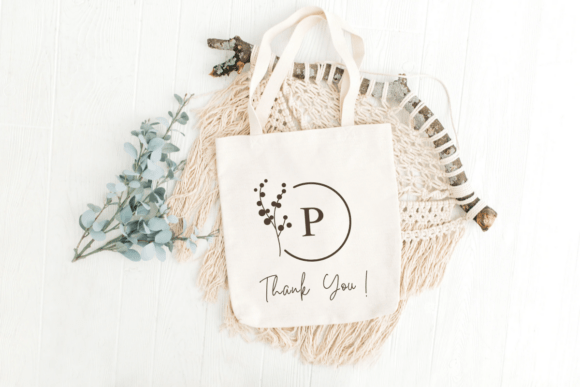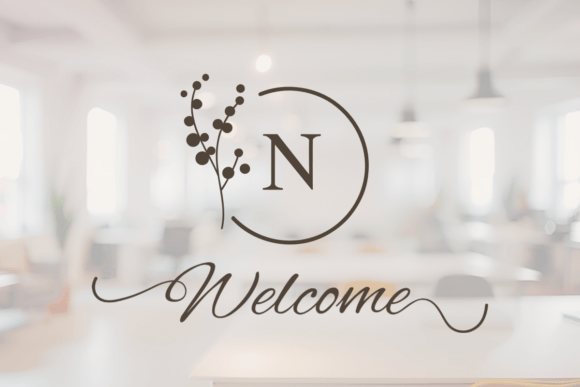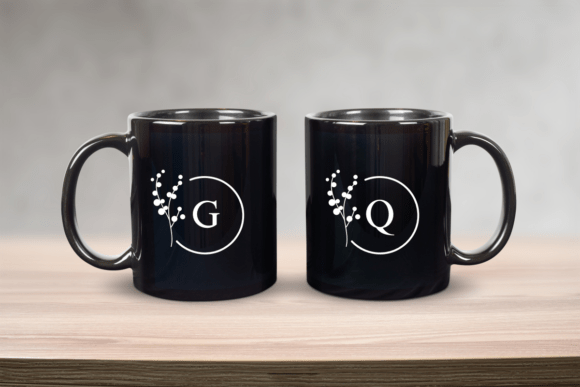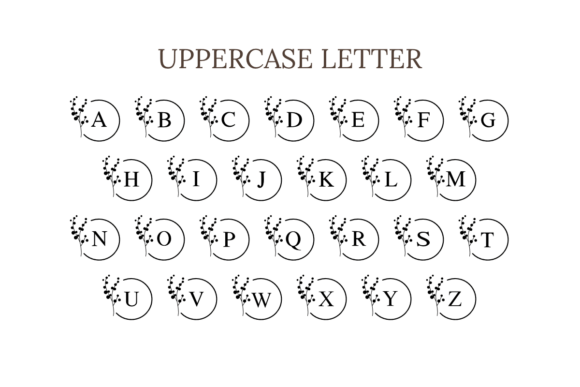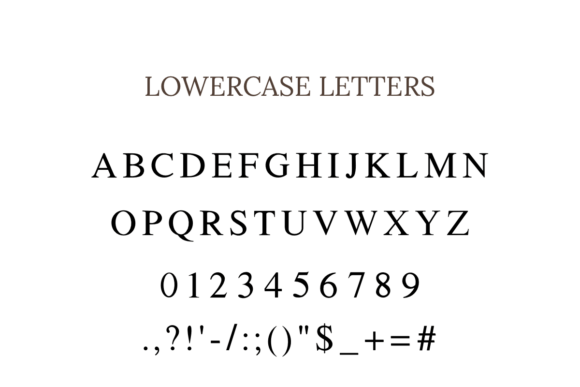
Unlock the Secrets of Nature-Inspired Design with Botanic Monogram Font
As a designer, you know the feeling of being stuck on a project, searching for that perfect font to elevate your client’s brand or wedding invitation. It’s like stumbling upon a hidden garden – the moment you step inside, everything falls into place. The gentle rustle of leaves, the delicate dance of petals, and the soothing colors of nature’s palette all come together to inspire your creative vision.
That’s where the Botanic Monogram Font comes in – a refined and nature-inspired decorative font that’s perfect for luxurious branding and elegant stationery. With its minimalist floral accents, it’s ideal for logos, wedding designs, and high-end packaging that calls for a soft yet sophisticated touch. By incorporating this beautiful font into your designs, you’ll add a touch of whimsy and romance that’s sure to leave a lasting impression.
Botanic Monogram Font Key Features
- Unique Characteristics: The Botanic Monogram Font features a beautiful, hand-drawn design with intricate details, inspired by botanical illustrations. Each letter is carefully crafted to resemble a floral motif, making it perfect for designs that require a touch of elegance and sophistication.
- Font Size and Resolution: The font comes in a single weight, with a recommended font size range of 24-48 points. It is designed to work well at medium to high resolutions (300-600 DPI).
- Glyphs and Characters: The font includes a comprehensive set of uppercase and lowercase letters, numerals, punctuation marks, and special characters, ensuring that you have everything you need to create beautiful and effective designs.
Botanic Monogram Font Review
I recently had the chance to work with Botanic Monogram Font, and I must say it’s a unique and eye-catching addition to any design project. ✨ The intricate details and organic feel of the font really make it stand out from the crowd. It’s perfect for brands that want to convey a sense of nature and sophistication.
- ✨ Unique and custom-like feel
- ✨ Great for creating a sense of luxury and high-end quality
- ✨ Works well in a variety of contexts, from invitations to product branding
- ⚠️ Limited character set, which can make it difficult to use for longer blocks of text
- ⚠️ Some of the characters can be difficult to read, especially in smaller sizes
- ⚠️ Not suitable for use in situations where a clear, legible font is required
Overall, I would say that Botanic Monogram Font is a great choice for designers who want to add a touch of elegance and sophistication to their projects. While it may not be suitable for every situation, it’s a great option for those looking to create a unique and memorable brand identity.
Use the Botanic Monogram Font to add a touch of elegance and sophistication to your designs. Pair it with watercolor or floral elements for a whimsical and romantic look. Experiment with different font sizes and colors to create visual interest and hierarchy.
The Botanic Monogram Font is perfect for wedding invitations, baby shower invitations, and other special occasion stationery. It’s also great for branding and marketing materials, such as logos, business cards, and brochures. Use it to add a personal touch to your designs and make them stand out.